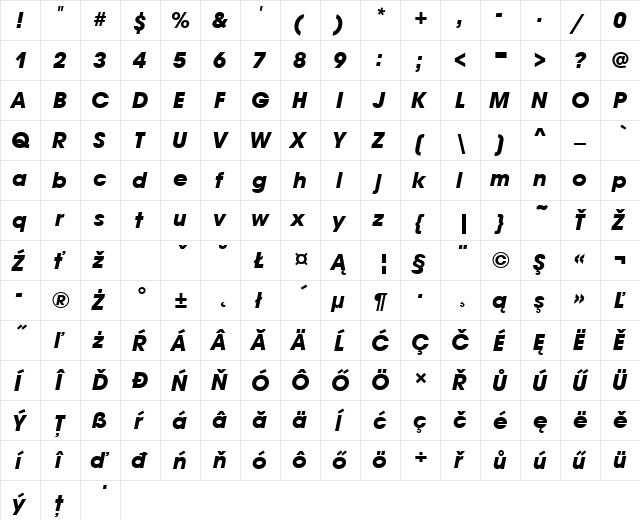
AvantGarGotItcTEE Bold Italic
Design Context for AvantGarGotItcTEE Typeface
AvantGarGotItcTEE offers clean, dependable letterforms without strong stylistic allegiance, making it a practical choice for designers who need flexibility. The slanted form adds forward momentum and visual energy. The heavy weight commands attention and anchors typographic hierarchies.
Pro Tip: Use AvantGarGotItcTEE for emphasis, pull quotes, and subheadings where its slanted energy can add rhythm to the layout.